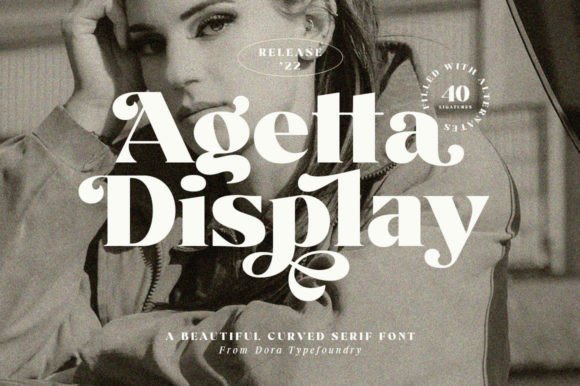
I still remember the frustration of working on a project, hours spent crafting the perfect design, only to hit a roadblock: finding the right font. My client wanted something bold, elegant, and refined, but everything I tried seemed to fall flat. That’s when I stumbled upon Agetta Display, a bold vintage-style serif font that instantly captured my attention. In this article, I’ll share my experience with Agetta Display, its features, and how to make the most of this beautiful font.
First Impressions: Agetta Display Review
Agetta Display is a stunning font that exudes elegance and sophistication. Here’s what I love about it:
- ✨ Bold and eye-catching: Agetta Display makes a statement with its strong personality and vintage flair.
- ✅ Elegant and refined: Its serif design and classic lines make it perfect for a wide range of applications, from luxury brands to wedding invitations.
- 💻 PUA encoded: With PUA encoding, accessing glyphs and ligatures is a breeze, giving you more creative freedom.
While Agetta Display is an excellent font, it’s not without its quirks:
- 🤔 Limited use cases for body text: Due to its bold nature, Agetta Display might not be the best choice for lengthy paragraphs or body text.
The Story Behind Agetta Display
Agetta Display was inspired by the classic typography of the early 20th century. Its designer aimed to create a font that exudes elegance and sophistication while still being bold and eye-catching. The result is a font that’s perfect for designers, crafters, and creative hobbyists looking for a unique touch.
| Is Agetta Display suitable for body text? | While Agetta Display is a beautiful font, its bold nature makes it more suitable for headlines, titles, and short paragraphs. For longer body text, you may want to consider a different font. |